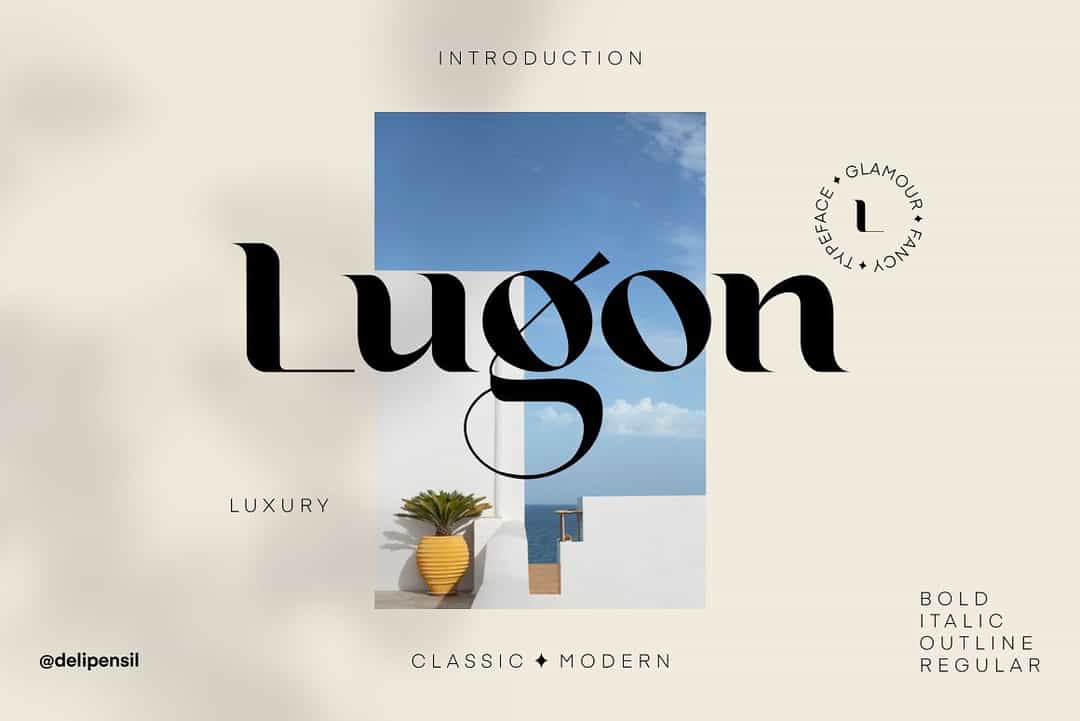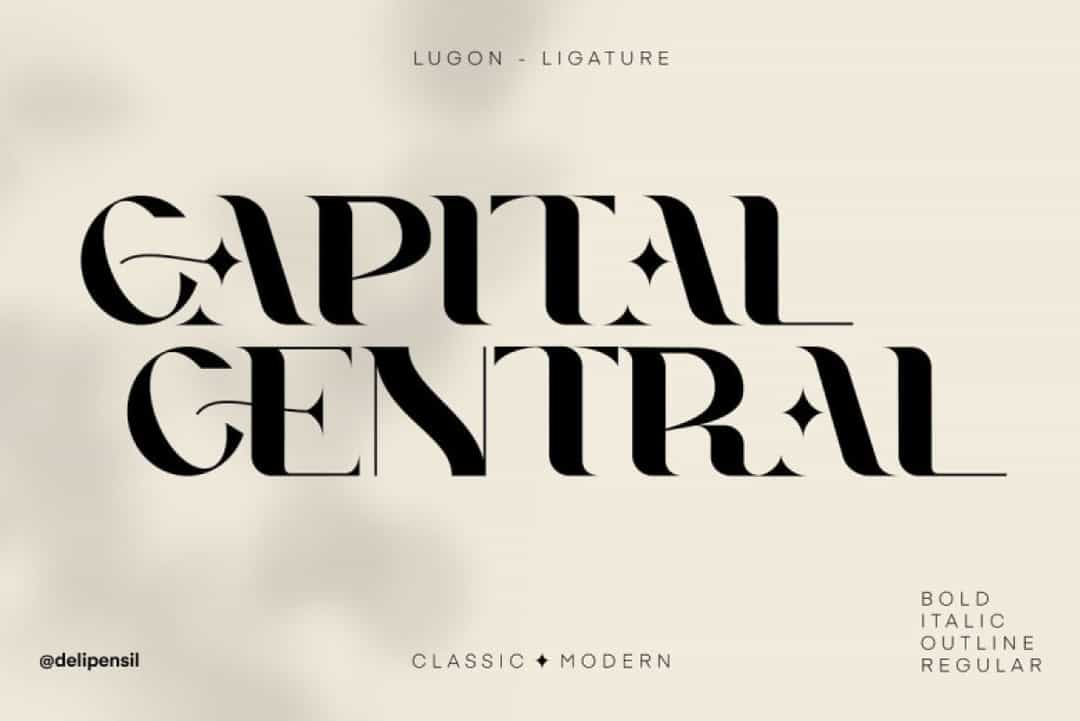
Lugon is a luxurious serif typeface. Professionally designed to make your work stand out, this font can add dimension to your ideas. Combine Lugon into one font to create a truly beautiful headline, logo or magazine cover.